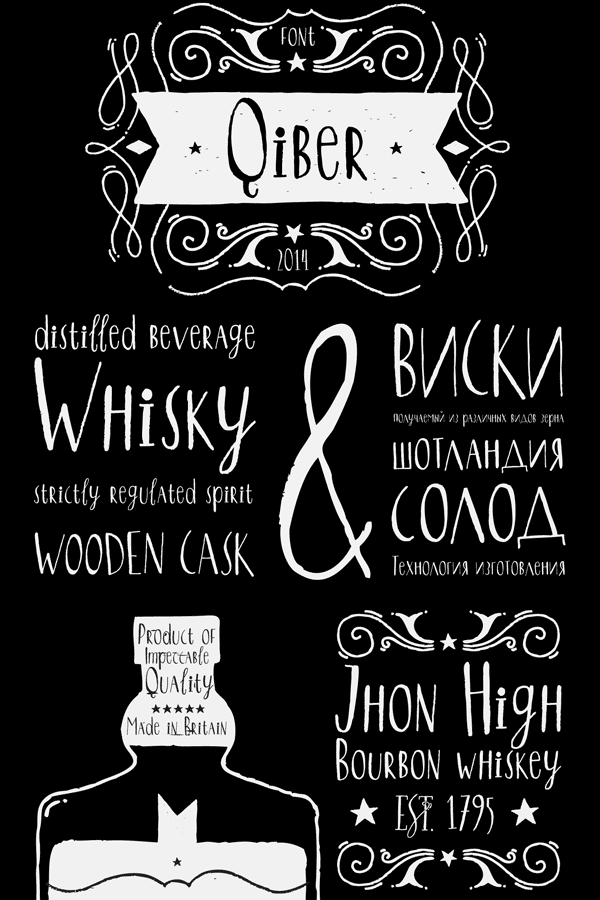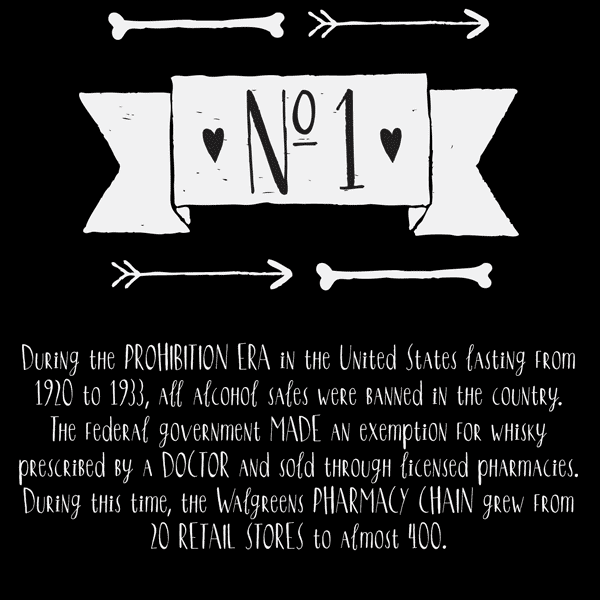
The Qiber Typeface.
Font designer Mariya V. Pigoulevskaya of The Northern Block team has designed the Qiber font. Qiber provides a natural handmade look with a unique personality. The typeface is intended for display use. The mix between small caps within the lowercase character set results in a fun playful feel. Qiber consists of 475 characters including several ornaments.